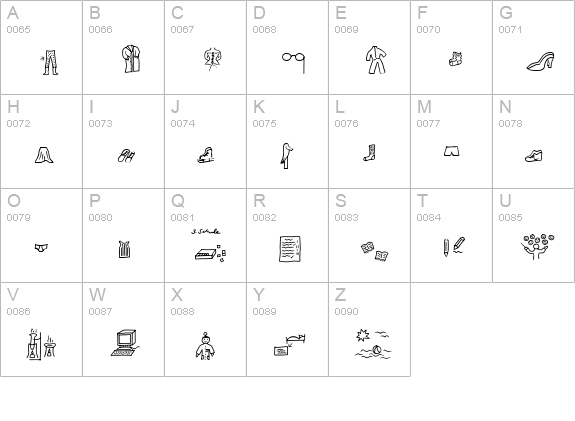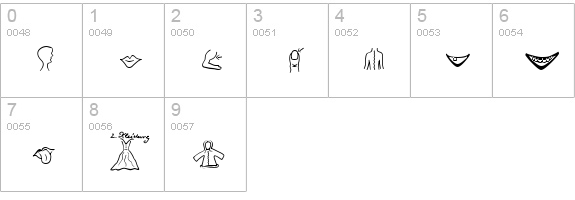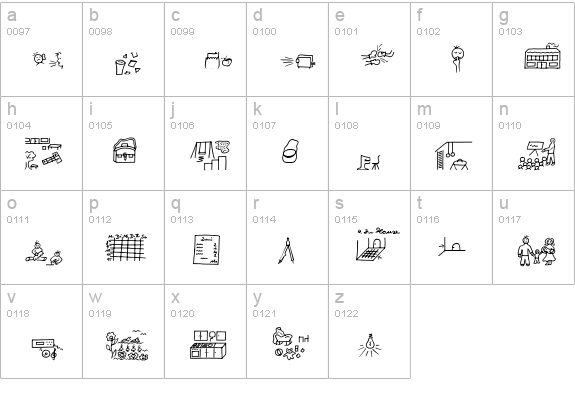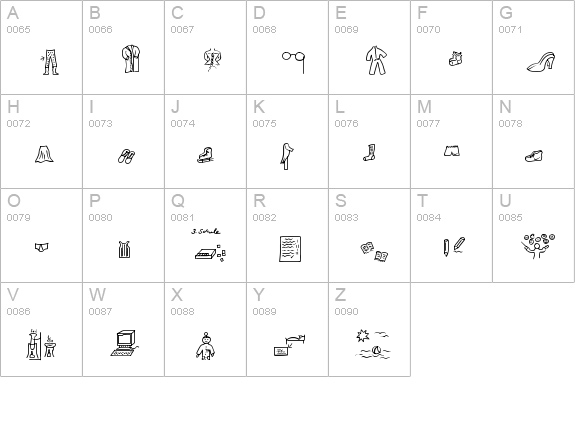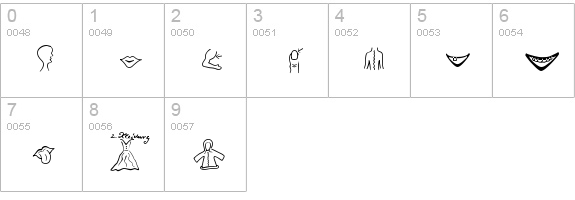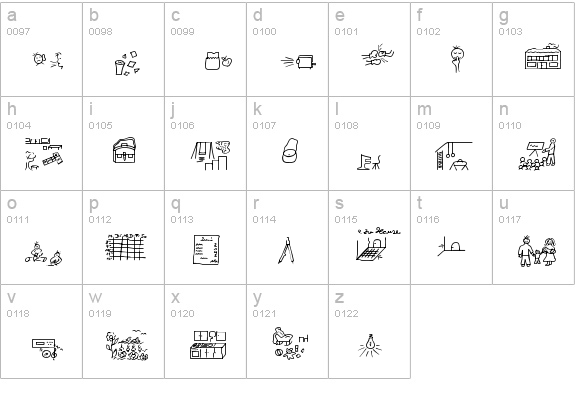
Symbolico 2 DB Font Details
Symbolico 2 DB font is a captivating and versatile typeface that combines elements of elegance and modernity. With its intricate design and unique characters, this font is perfect for adding a touch of sophistication to any project. Whether you are creating a logo, designing a website, or working on a print project, Symbolico 2 DB font will make your text stand out. The best part is that Symbolico 2 DB font is completely free to download. You can easily access this stunning font at FontsMarket.com, where you can enhance your design projects without any cost. Don't miss out on the opportunity to elevate your designs with Symbolico 2 DB font today!